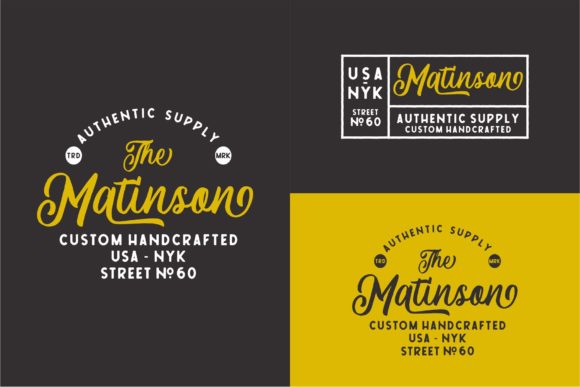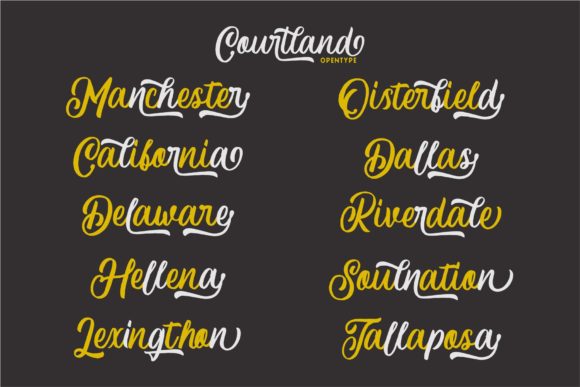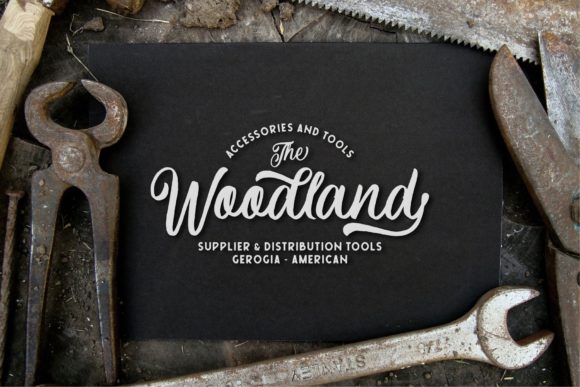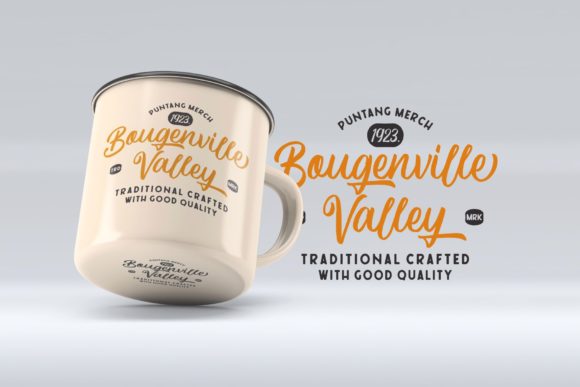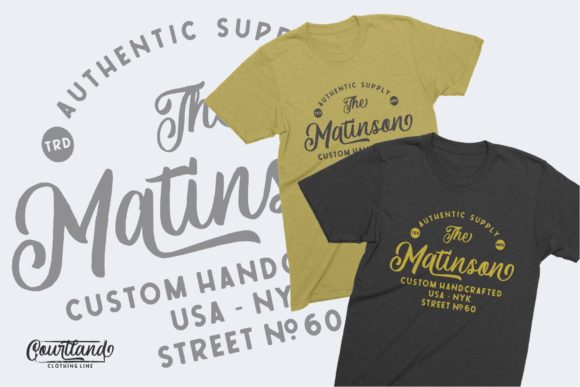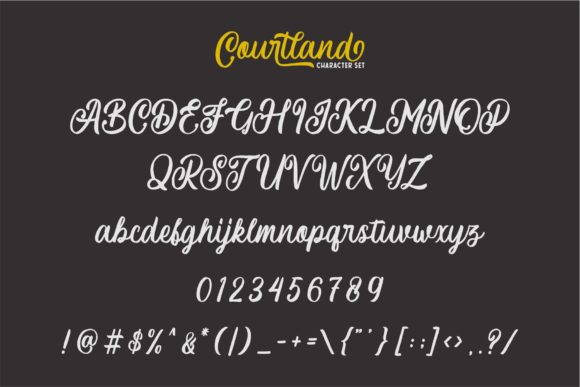
Courtland Font: A Vintage Masterpiece Inspired by Canada’s Breathtaking Landscape
Are you a designer or crafter looking for a unique and bold font to add a retro touch to your design projects? Look no further than the Courtland Font, a beautiful and vintage typeface that draws inspiration from the stunning landscapes of Canada. This gorgeous font is sure to elevate your designs and leave a lasting impression on your audience.
The Story Behind Courtland Font
Courtland Font is a carefully crafted typeface that pays homage to Canada’s vast and diverse natural beauty. From the rugged mountains to the serene lakes, this font embodies the country’s majestic spirit. The font’s creator aimed to capture the essence of Canada’s landscape and translate it into a bold, yet elegant, typographic style.
What Makes Courtland Font So Special?
Courtland Font boasts a range of characteristics that make it a standout in the world of typography. Here are a few reasons why designers and crafters are falling in love with this vintage font:
- Bold and Beautiful: Courtland Font features a bold and eye-catching design that’s perfect for making a statement. Its sturdy lines and classic curves give it a timeless look that’s sure to turn heads.
- Retro Touch: With its vintage flair, Courtland Font adds a touch of nostalgia to any design project. Whether you’re creating a logo, poster, or packaging, this font is sure to evoke a sense of nostalgia and classic charm.
- Versatile: Courtland Font is incredibly versatile and can be used for a wide range of design projects, from branding and advertising to crafting and scrapbooking.
Meet Freudian: The Perfect Companion Font
To complement Courtland Font, the amazing font Freudian is also included. Freudian features a more refined and elegant design that perfectly complements Courtland’s bold style. The combination of these two fonts creates a match made in heaven, allowing designers to add depth and contrast to their designs.
Why Designers and Crafters Love Courtland Font
Courtland Font has quickly become a favorite among designers and crafters, and for good reason. Here are a few reasons why:
- Easy to Read: Despite its bold design, Courtland Font is surprisingly easy to read, making it perfect for body text and headlines.
- Highly Legible: The font’s clear and distinct lines ensure that it’s highly legible, even at small sizes.
- Unique and Distinctive: Courtland Font’s unique style sets it apart from other fonts on the market, ensuring that your designs will stand out from the crowd.
Using Courtland Font in Your Design Projects
Courtland Font is incredibly easy to use and can be incorporated into a wide range of design projects. Here are a few ideas to get you started:
- Branding and Logo Design: Use Courtland Font to create a bold and memorable logo that’s sure to make a lasting impression.
- Posters and Flyers: Add a touch of nostalgia to your posters and flyers with Courtland Font’s vintage flair.
- Crafting and Scrapbooking: Use Courtland Font to add a personal touch to your crafting and scrapbooking projects.
In conclusion, Courtland Font is a stunning vintage typeface that’s inspired by the breathtaking landscapes of Canada. With its bold and beautiful design, retro touch, and versatility, this font is sure to become a favorite among designers and crafters. Paired with the elegant font Freudian, Courtland Font is the perfect addition to any design project that needs a touch of classic charm.